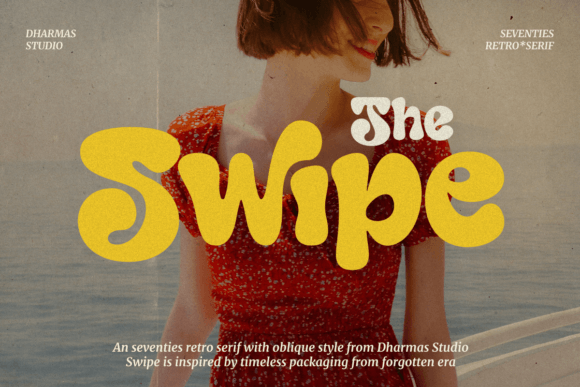
Introducing Swipe Font - the ultimate retro display font that is sure to add a touch of nostalgia to your project. Created by Dharmas Studio, Swipe Font boasts a unique retro design that is both bold and playful.
Swipe Font is perfect for anyone looking for the best font for Instagram. With its smooth curves and soft bold, it is the ideal choice for headings, logotypes, quotes, apparel design, posters, flyers, packaging, book covers, and more. The font comes in both regular and oblique styles, giving you even more flexibility to create stunning designs.
This font is not only versatile, but it also has a wide range of uses. Whether you're looking to create a vintage poster or a modern logo, Swipe Font has got you covered. With its PUA encoding, you can easily access all of the glyphs and swashes, making it easy to add those extra flourishes to your designs.
With Swipe Font, you can take your projects to the next level. Its seventies vibe adds a touch of retro charm that is sure to captivate your audience. And with its limitless potential, the possibilities are endless. Swipe Font is the perfect choice for anyone looking to add a touch of nostalgia and creativity to their designs.